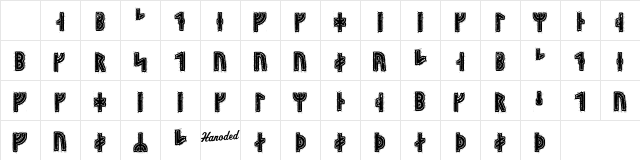
Complete Hyrrokkin Runic Regular glyph index. Displaying only characters natively supported by Hyrrokkin Runic Regular font.
Hyrrokkin Runic is a composed and adaptable typeface that performs quietly and consistently across a wide range of design contexts.